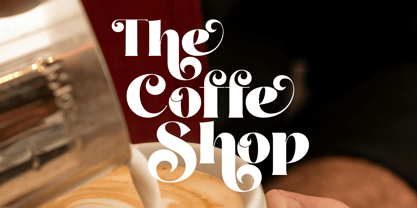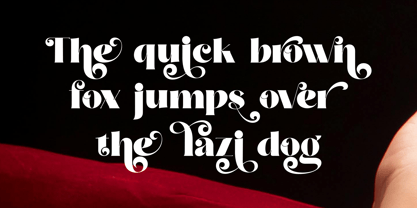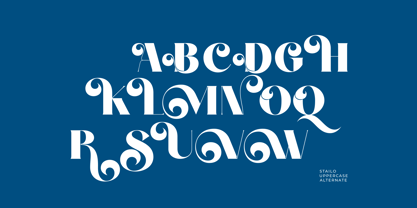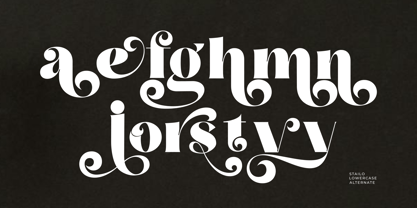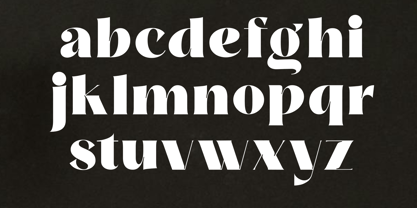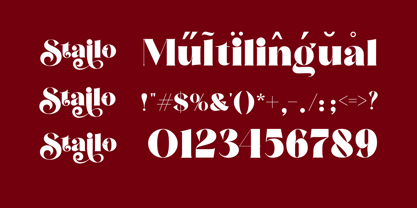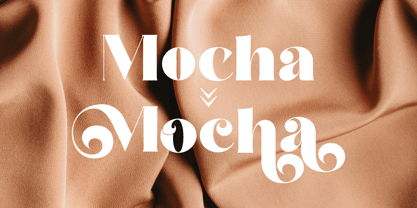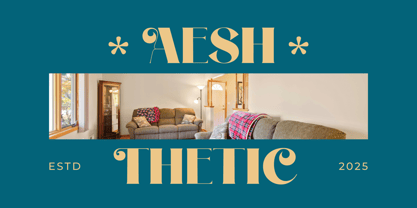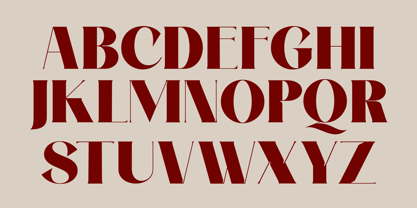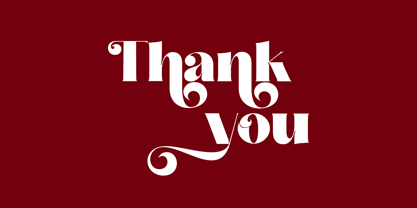
Stailo
by Zaain Type
The Stailo Font Family was designed by Ju Naen and published by Zaain Type. Stailo contains 2 styles and family package options.
Stailo is a modern serif font with sharp contrast and short, clean serifs. Elegant, confident, and stylish — perfect for fashion branding, luxury editorials, and packaging design that demands attention. Available in two expressive styles: Regular and Oblique